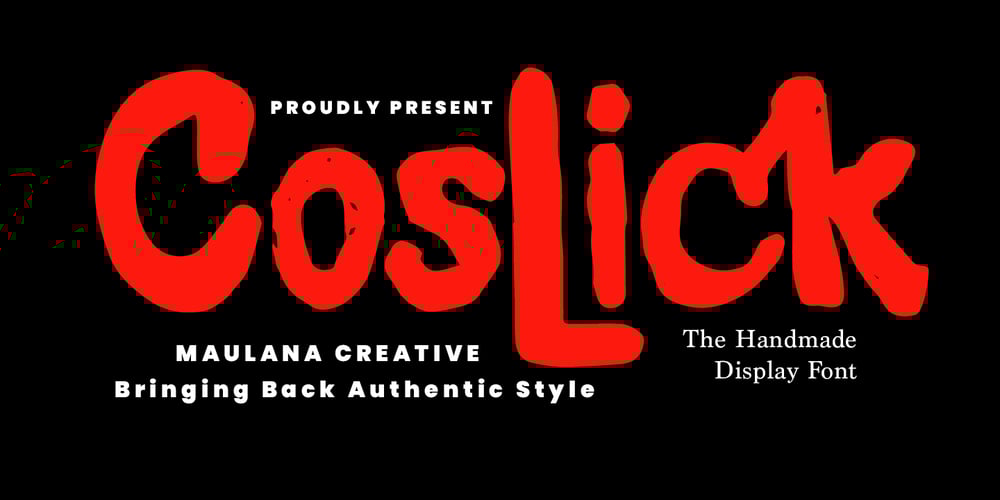
MC Coslick Font Family was designed by Gilang Maulana and published by Maulana Creative. MC Coslick contains 1 styles and family package options. Coslick font. Heavy stroke, fun character with a ligatures. To give you an extra creative work, Coslick font support multilingual language. This font is good for logo design, Social media, Movie Titles, Books Titles, a short text even a long text letter and good for your secondary text font with script or serif. Make a stunning work with Coslick font.